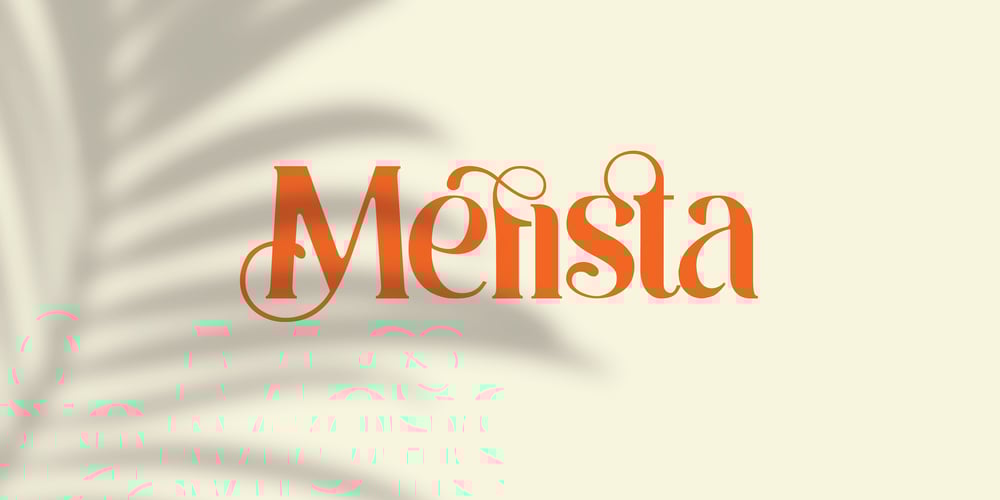
Mefista Font Family was designed by Jarnawi Saja and published by Grontype. Mefista contains 1 styles and family package options. The Mefista font is a masterpiece crafted from a rigorous and lengthy process. This font was written with care so as to produce a unique and diverse work by adding alternatives and some ligatures. This font can be used for print designs such as writing on invitation cards, magazine covers, greeting cards and so on. and can be used for company or logo taglinesFeatures : Uppercase and Lowercase Ligatures and Alternates Numeral and Punctuations Thankyou for purchasing this fonts. Regards, Grontype